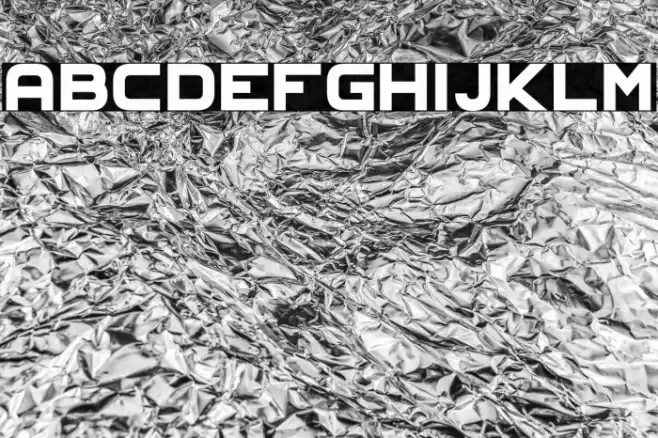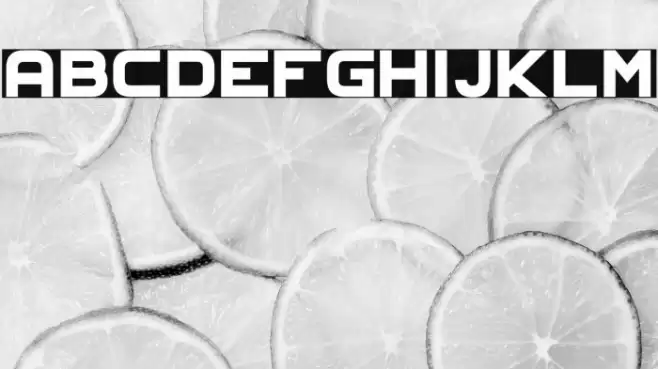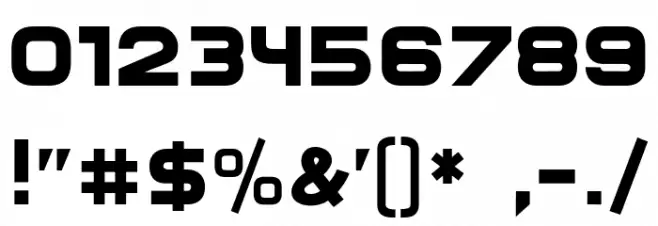
AeroClubComo Font
AeroClubComo Description
This font features a bold and modern design with geometric influences, characterized by its strong, clean lines and uniform stroke width. The uppercase letters are particularly striking, with a squared-off appearance that conveys a sense of stability and strength. The lowercase letters maintain this geometric style, ensuring consistency throughout the typeface. The numerals are equally robust, offering clear legibility. Special characters are designed to match the overall aesthetic, making this font versatile for various applications. Its boldness and clarity make it suitable for impactful headlines or branding projects.
A bold, modern font with geometric influences and strong, clean lines from Uncategorized fonts.
- Font: AeroClubComo
- Proposed Projects: Ideal for branding, advertising, headlines, and any project requiring a modern, impactful typeface.
AeroClubComo UPPERCASE
AeroClubComo LOWERCASE
AeroClubComo OTHER CHARS